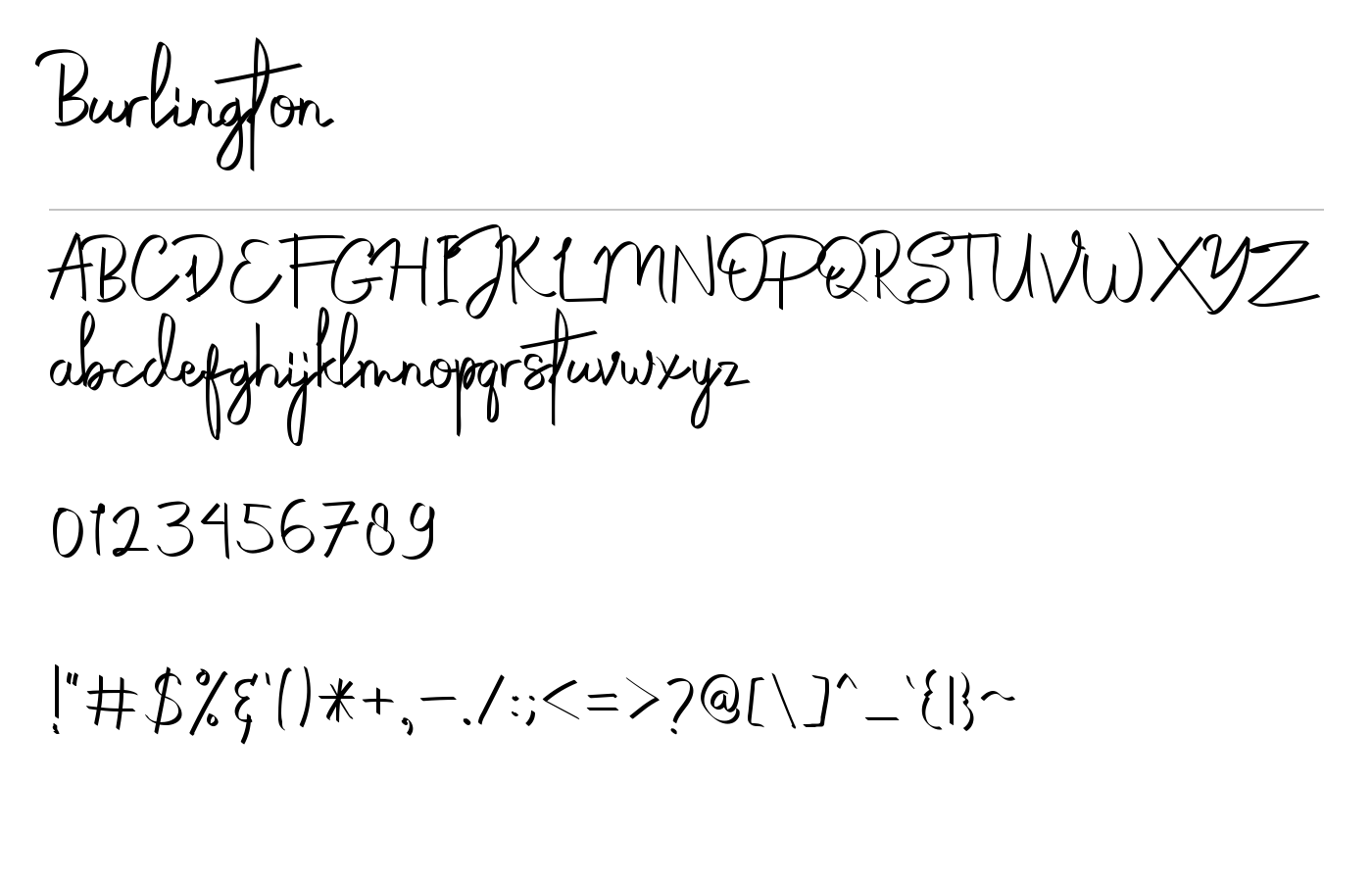
Burlington is a playful, casual script font with a hand-drawn feel, characterized by its tall, narrow letterforms and lively, sweeping strokes. Its thin weight and irregular, slightly quirky shapes make it perfect for adding a personal, friendly touch to designs like invitations, branding, or social media graphics where a warm, approachable style is desired.
Burlington Font
About Burlington Font